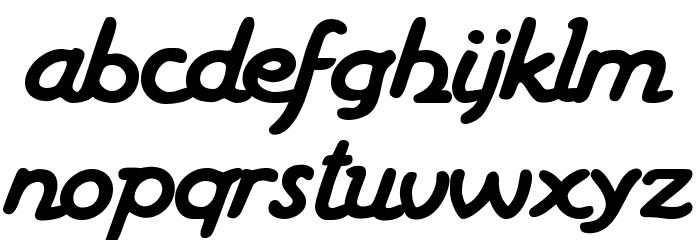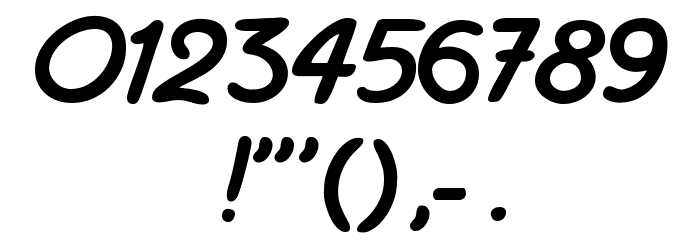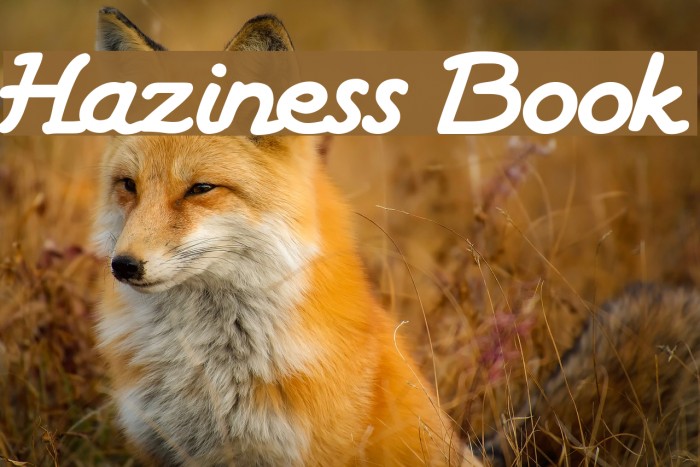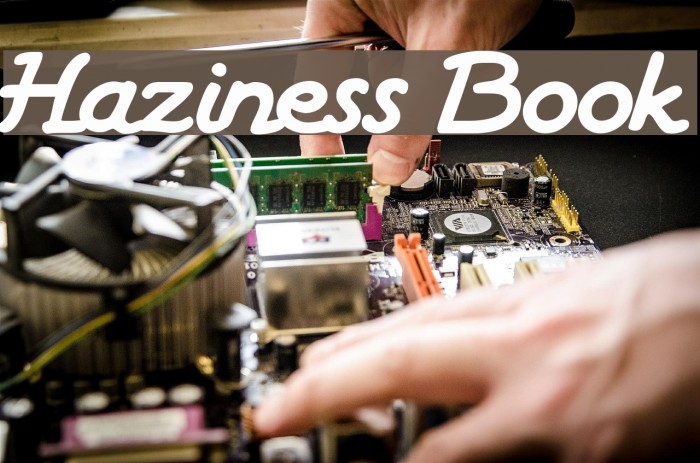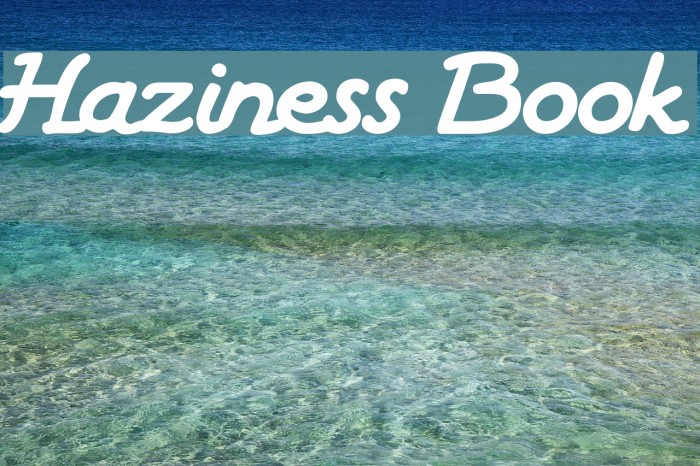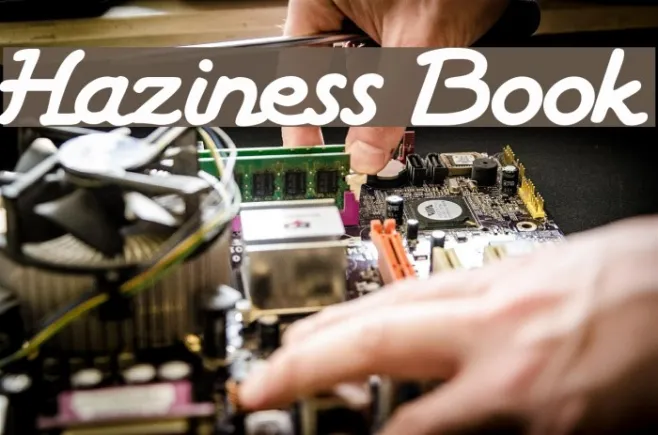
Haziness Book Font
This font features a flowing, cursive style with a playful and dynamic appearance. The letters are interconnected, giving it a handwritten feel that is both casual and elegant. The strokes are consistent in thickness, providing a smooth and uniform look across all characters. The uppercase letters maintain a bold presence, while the lowercase letters are slightly more compact, enhancing readability. The numerals and special characters follow the same stylistic cues, ensuring cohesion throughout. This font is versatile, suitable for projects that require a personal touch or a creative flair.
A playful, cursive font with interconnected letters and a handwritten feel.
- Proposed Projects: Ideal for greeting cards, invitations, branding, and creative design projects.
- Use Case: Logos, Invitations, Greeting Cards